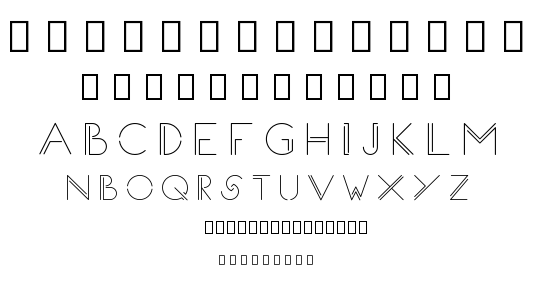
Introducing Maze, a thin, geometric typeface designed using only two strokes for character. Dynamic and sharp, the interaction between lines and their precision resemble the shape of a Maze.
Perfect to use in headlines or type compositions.